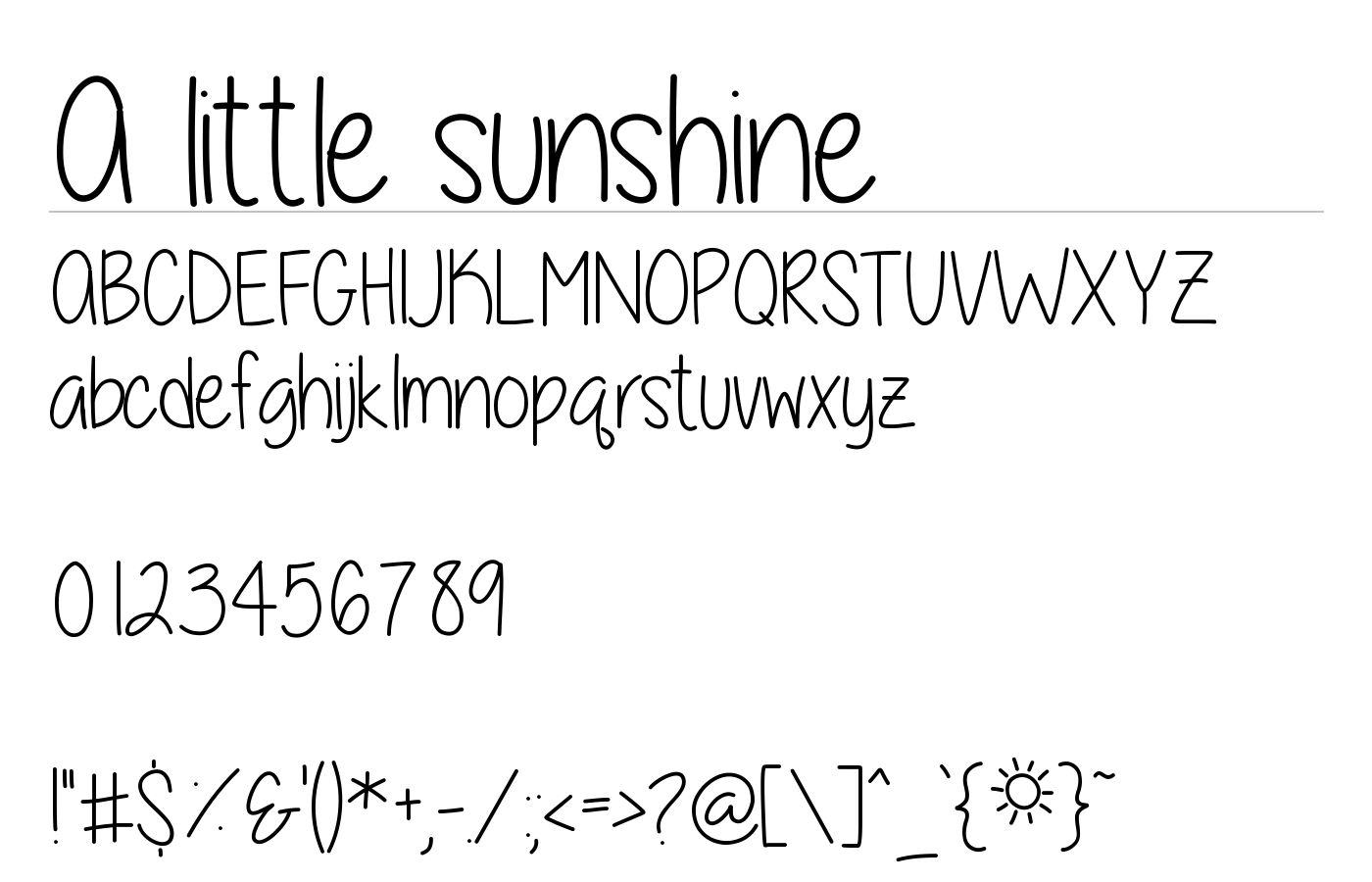
A Little Sunshine is a playful, hand-drawn sans serif font with a light weight and tall, narrow letterforms that give it a friendly, casual feel. Its uneven strokes and quirky character shapes make it perfect for children's designs, informal branding, and any creative project seeking an approachable, cheerful vibe. This font works well in headlines, invitations, and packaging where a personal, handwritten touch is desired.
A little sunshine Font
About A little sunshine Font